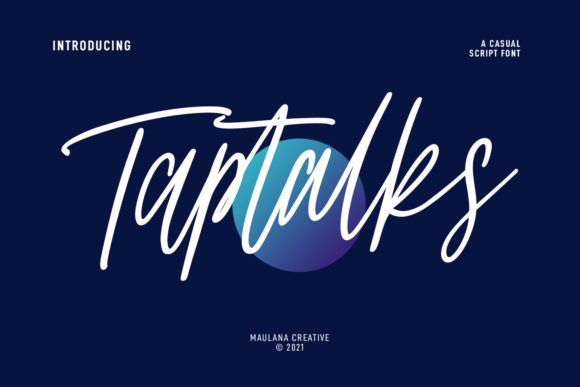
About Taptalks Script Font
Taptalks is a slanted casual script font. With lights contrast stroke, fun character with many of natural ligatures. This font is a perfect fit for logo design, social media, movie titles, or books titles. Make stunning work with Taptalks font!